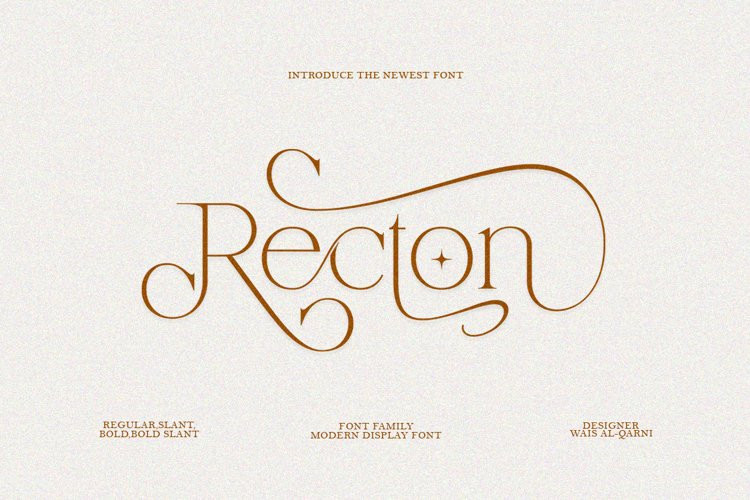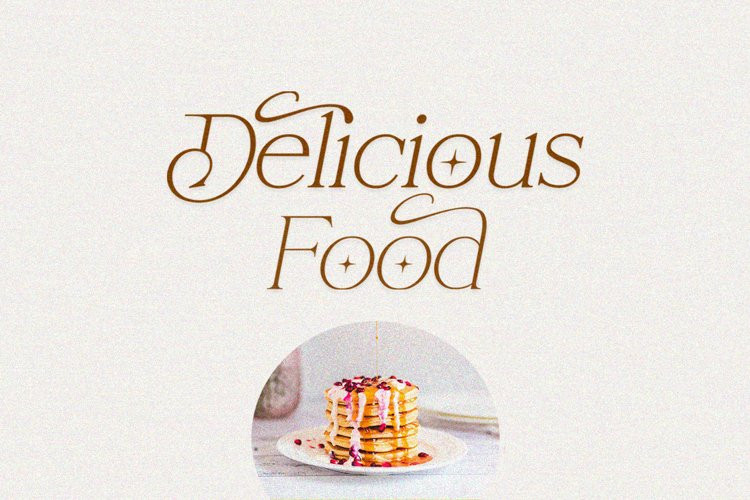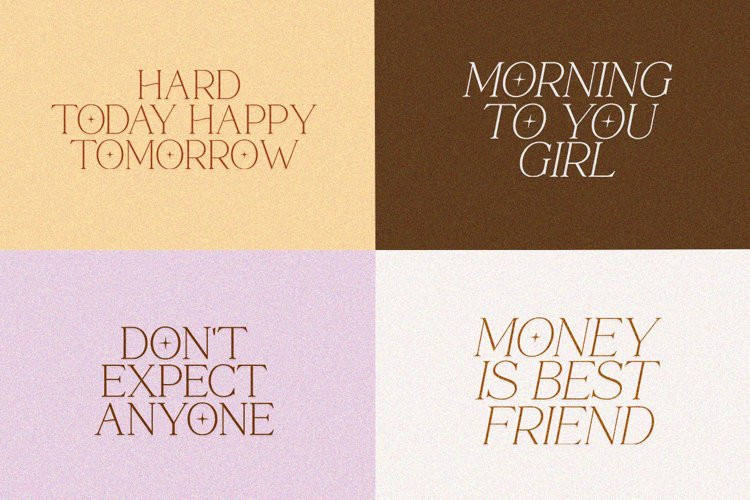
Recton Font
Recton is a sophisticated and charming serif with a fashionable touch. Specially designed for luxury, elegant, feminine projects, Recton is perfect for creating modern and chic designs such as logos, packaging, editorials and more.
A trendy, classy & modern style serif font for your fancy projects. Elegant, fashion and classic style in the Recton font will be great for any branding project. Many alternatives and binders will help you create a unique and original logo or website header design.